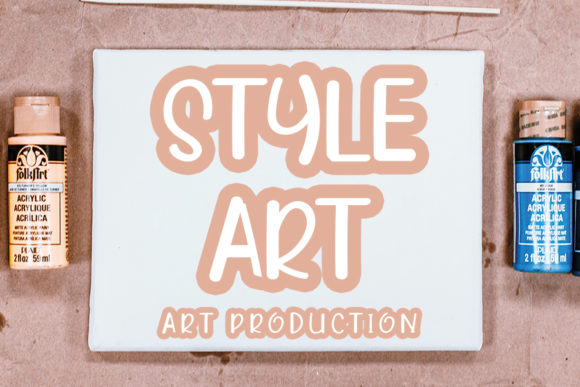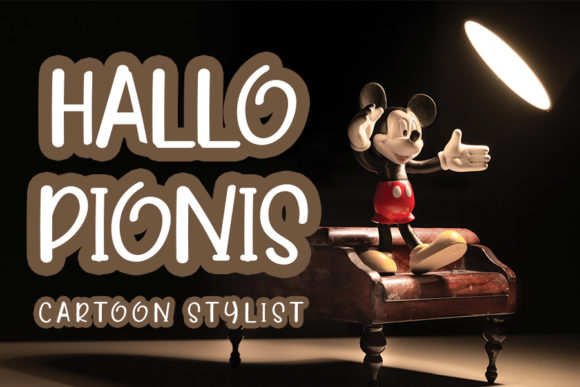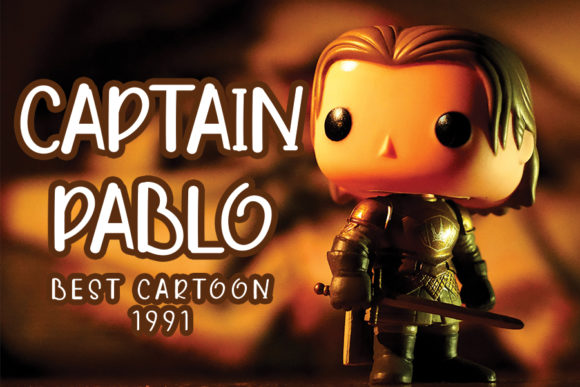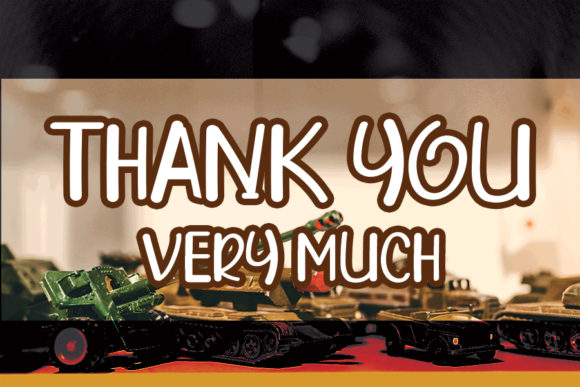
Unlock the Joy in Your Designs with Cartoon Moreen Font
Who hasn’t had that magical moment when a spark of creativity strikes, and a new idea bursts into life? For designers, this moment is often the key to creating something truly special. But what makes the difference between a good design and a great one? Sometimes, it’s just the right font that brings it all together.
Enter the Cartoon Moreen Font, a charming display font designed to add a playful touch to your creative projects. This font is more than just a pretty face – it’s a tool to elevate your designs and make them truly unforgettable. With Cartoon Moreen Font, you can add a dash of whimsy and joy to your work, making it stand out from the crowd and leave a lasting impression.
Cartoon Moreen Font Key Features
- Font Family: Cartoon Moreen, a playful and whimsical font
- Character Count: 240 characters, including uppercase and lowercase letters, numbers, and punctuation
- Unique Characteristics: The font features a childlike, handwritten feel with varying line widths and expressive flourishes
Designer Review: Cartoon Moreen Font
Overall, I’d say the Cartoon Moreen Font is a quirky and fun addition to any designer’s toolkit. Here’s what I like about it: ✨ It’s perfect for adding a playful touch to children’s books, birthday party invitations, or any other project that needs a lighthearted feel. ✨ The font is highly customizable, allowing designers to adjust the color, size, and style to suit their needs. ✨ The font’s unique, hand-drawn look adds a personal touch that can make your designs stand out.
However, there are a few limitations to keep in mind: ⚠️ The font can be a bit difficult to read at small sizes, especially for long blocks of text. ⚠️ It’s not suitable for formal or professional projects, as it may come across as too childish. ⚠️ The font’s customizability can also be a double-edged sword – while it offers a lot of flexibility, it can be overwhelming to navigate the various options.
In terms of overall impression, I’d say the Cartoon Moreen Font is a solid choice for designers who need a fun, playful font. While it may not be suitable for every project, it’s a great addition to any designer’s toolkit for adding a lighthearted touch.
Pros and Cons:
- ✨ Perfect for adding a playful touch
- ✨ Highly customizable
- ✨ Unique, hand-drawn look
- ⚠️ Difficult to read at small sizes
- ⚠️ Not suitable for formal projects
- ⚠️ Can be overwhelming to navigate custom options
Practical Application Guide: Cartoon Moreen Font
Tips for Getting the Most Out of Cartoon Moreen Font
Use Cartoon Moreen Font for playful and creative projects, such as children’s books, comics, and advertisements. Experiment with different font sizes and colors to add visual interest to your designs. You can also pair the font with other playful fonts to create a unique look.
Cartoon Moreen Font is ideal for:
Children’s book covers and illustrations
Comic strips and graphic novels
Playful advertisements and marketing materials
Party invitations and social media graphics